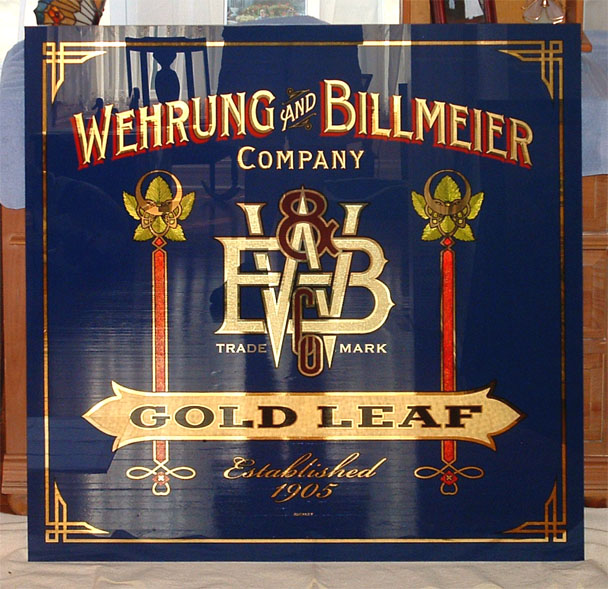
Hello, all! It's been ages since I posted anything here, but I want everyone to know how much I enjoy reading what everyone's been up to. Thought you'd like to see my latest project which was a labor of love for the Billmeier family. All the best to everyone!
Bruce,
I am very impressed with your piece. I would love to do a version of my own. If the art work is available let me know. If not I will have to be satisfied with staring at yours.
Lovey piece of artwork. W&B are wonderful to work with and have been very generous to the Living Sky Letterheads. We're still hoping to see Urban in Unity this weekend.
Hopefully they'll add this beautiful glass to their website.
Nicely done. I've used W&B for years and enjoy working with Urban and Urban Jr. What a great tradition in their family and wonderful products for us. Thanks for posting. I too would love to do that piece for my private collection. I echo what Roderick has said.
Beautiful piece.
Outstanding...
Thanks for posting this picture, Bruce.
Excellent work!
Nice choice of colors too. Really sets the gold off.